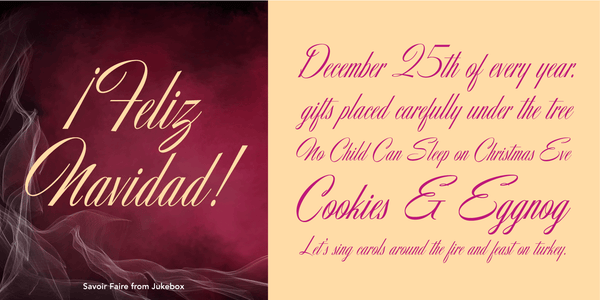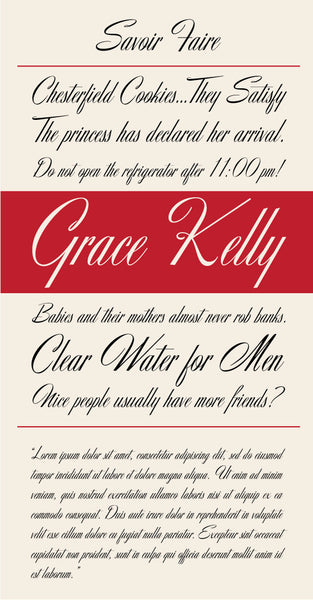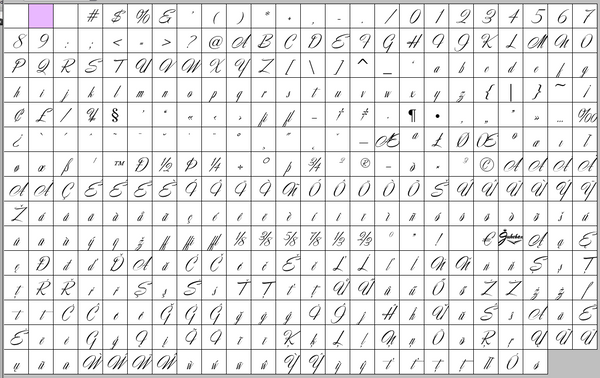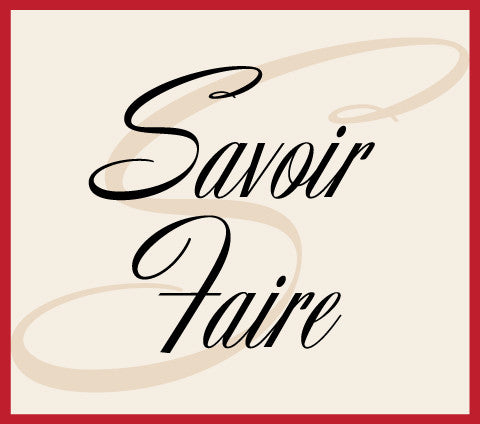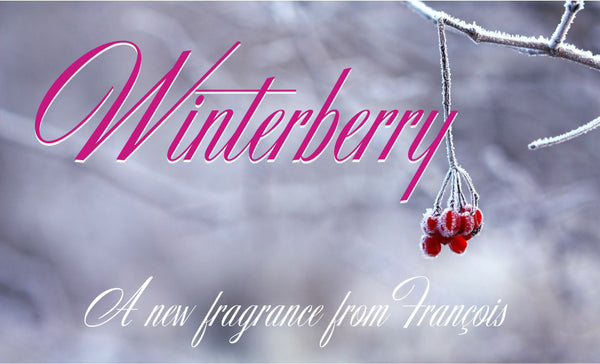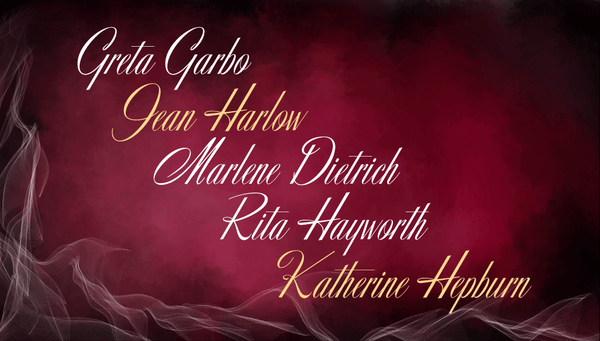
Savoir Faire
Savoir Faire is an original Jukebox typeface inspired by a hand-lettered 1950s ad. This elegant and classy script face is perfect for a variety of uses with its sophisticated flair. It has a definite Old Hollywood feel to it with out being overtly dated.